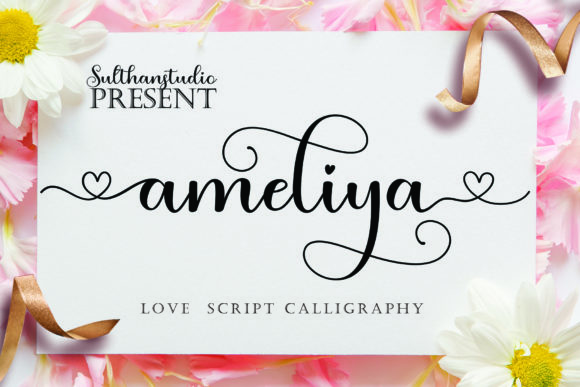
Welcome to the world of Ameliya Font – the script font family that will melt your heart! Created by the renowned Sulthan Studio, Ameliya is a perfect choice for those who want to add a romantic and charming touch to their projects.
Ameliya Font is not just another font – it is a cute calligraphy font that comes with adorable hearts that can be connected on the front and back. Whether you are a creative professional or an individual looking for a special touch for your crafting projects, Ameliya is the perfect choice.
One of the most significant benefits of using Ameliya Font is that it can give your projects a unique personality. The font has an elegant and feminine touch, making it ideal for wedding invitations, love letters, and other romantic projects. With Ameliya, you can express your emotions in a way that words alone cannot do justice.
Another benefit of using Ameliya Font is that it is versatile and easy to use. The font is suitable for a wide range of projects, including branding, advertising, social media graphics, and more. Its legibility and elegance make it perfect for both print and digital media.
With its captivating and alluring design, Ameliya Font is sure to grab the attention of anyone who comes across your projects. Its charming and romantic touch is perfect for capturing the hearts of your audience and leaving a lasting impression.
In summary, Ameliya Font is a perfect choice for anyone looking for a unique, romantic, and eye-catching font for their projects. Created by Sulthan Studio, this font is versatile, easy to use, and perfect for a wide range of projects. Download Ameliya today and add a touch of love and charm to your next project!